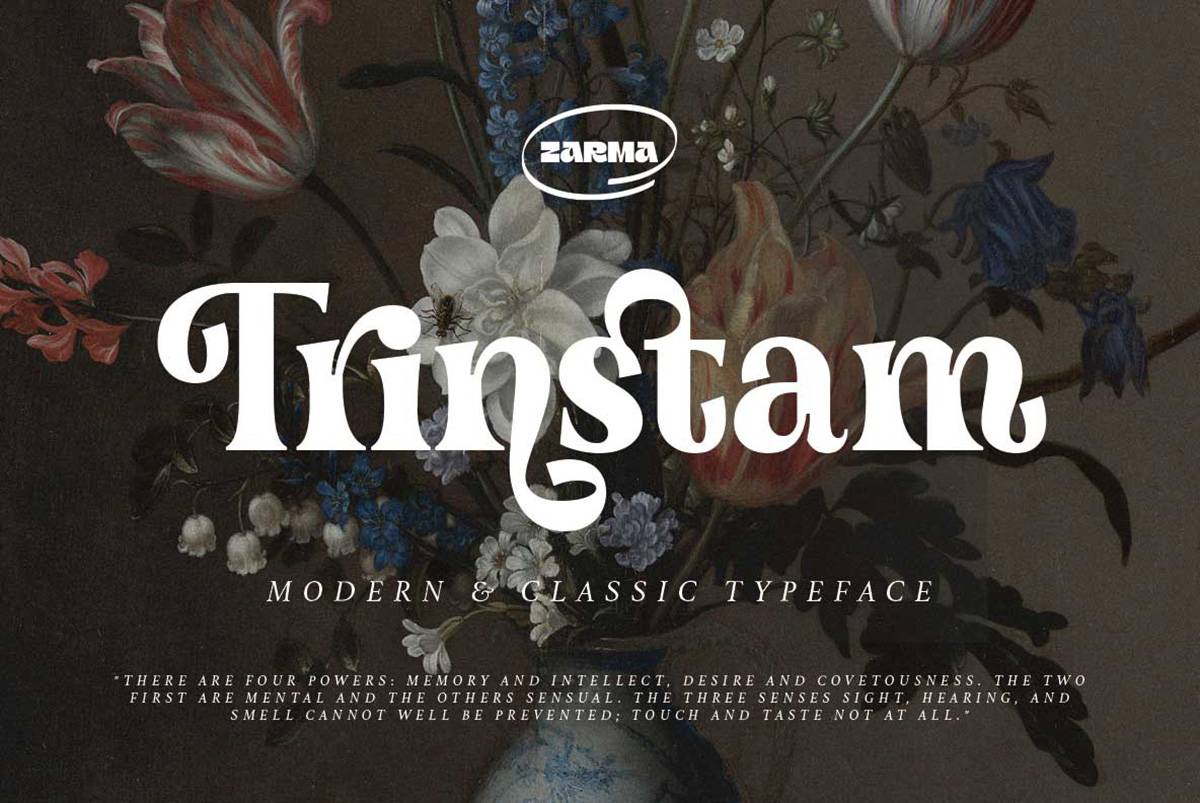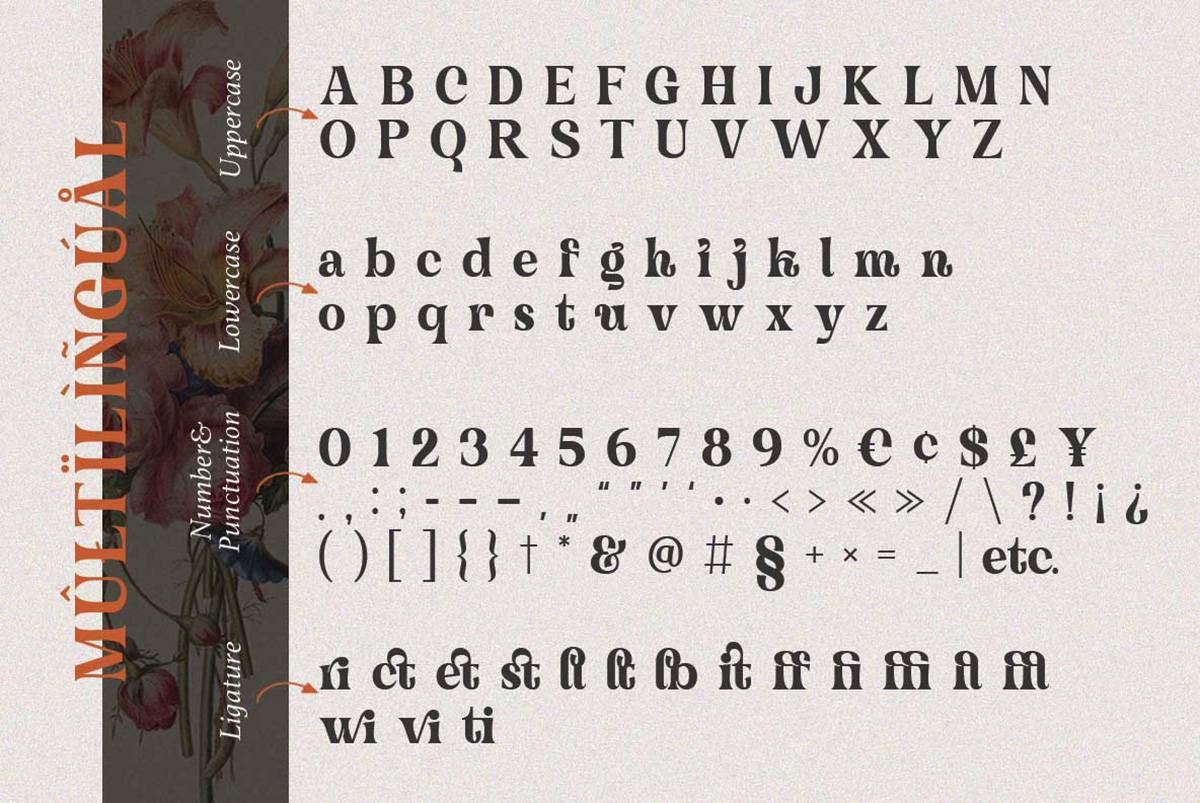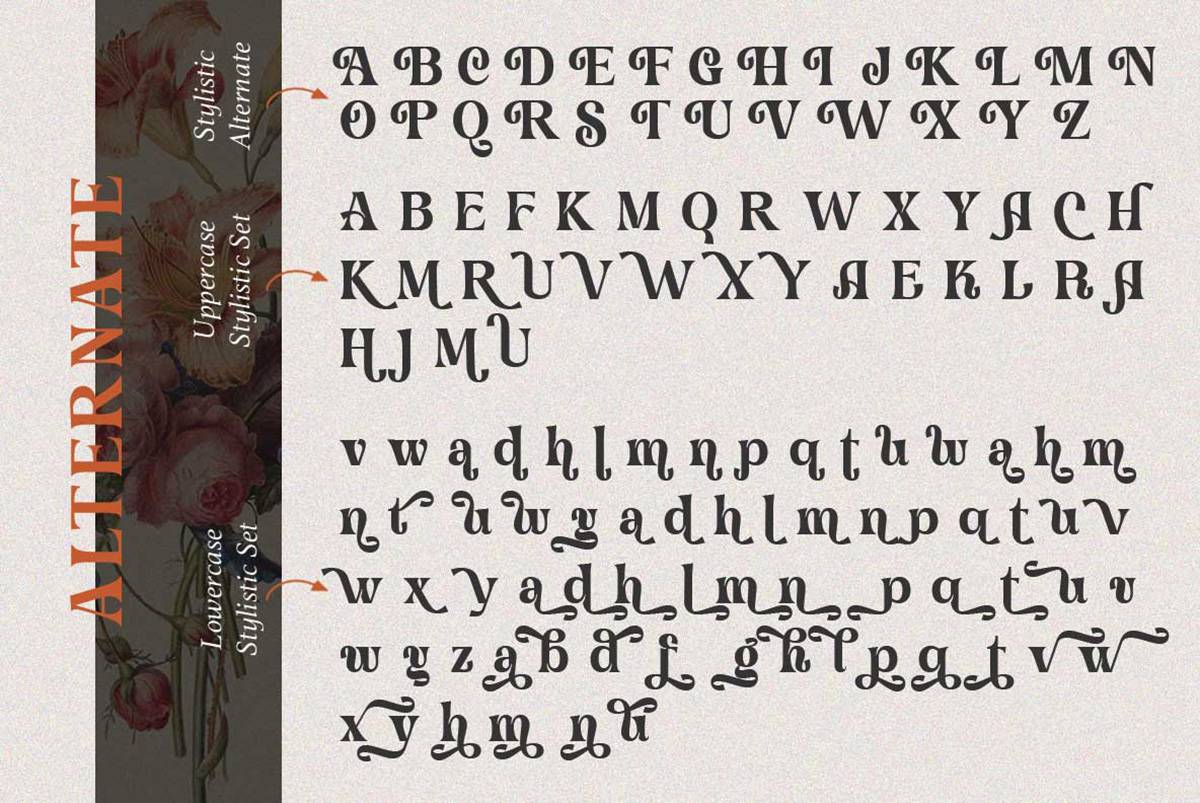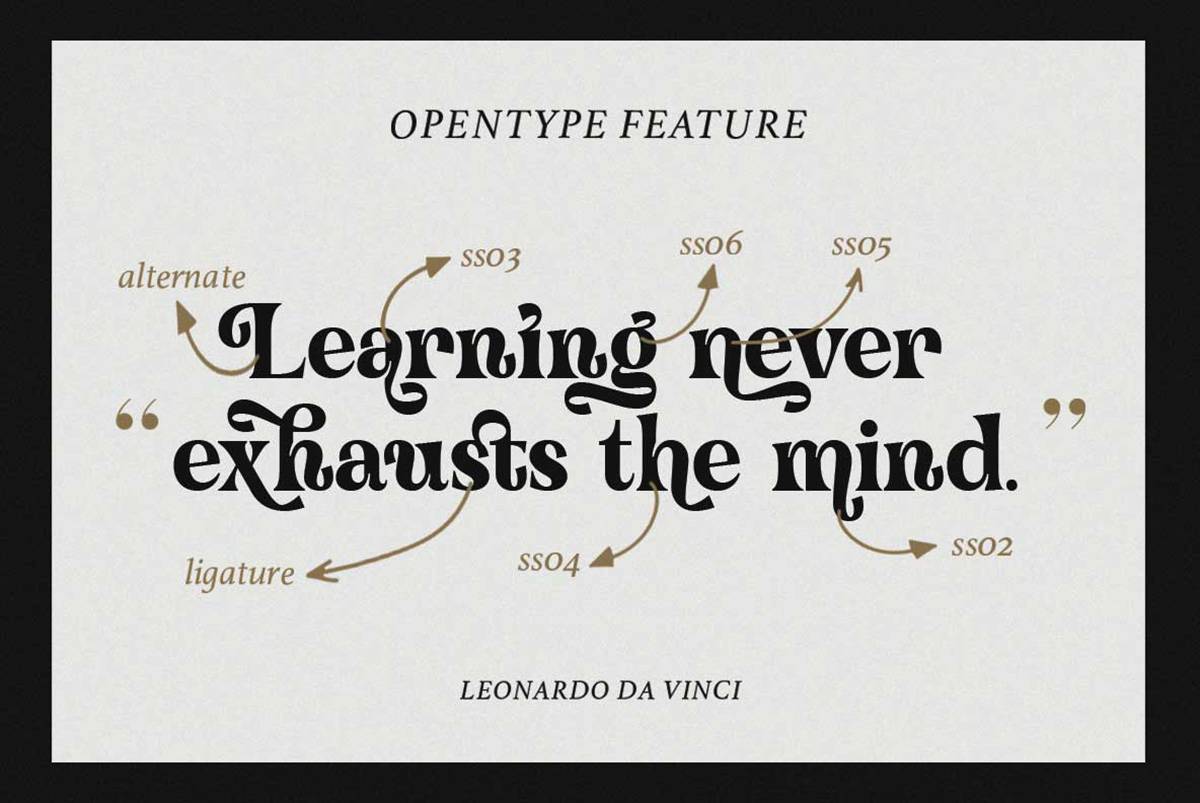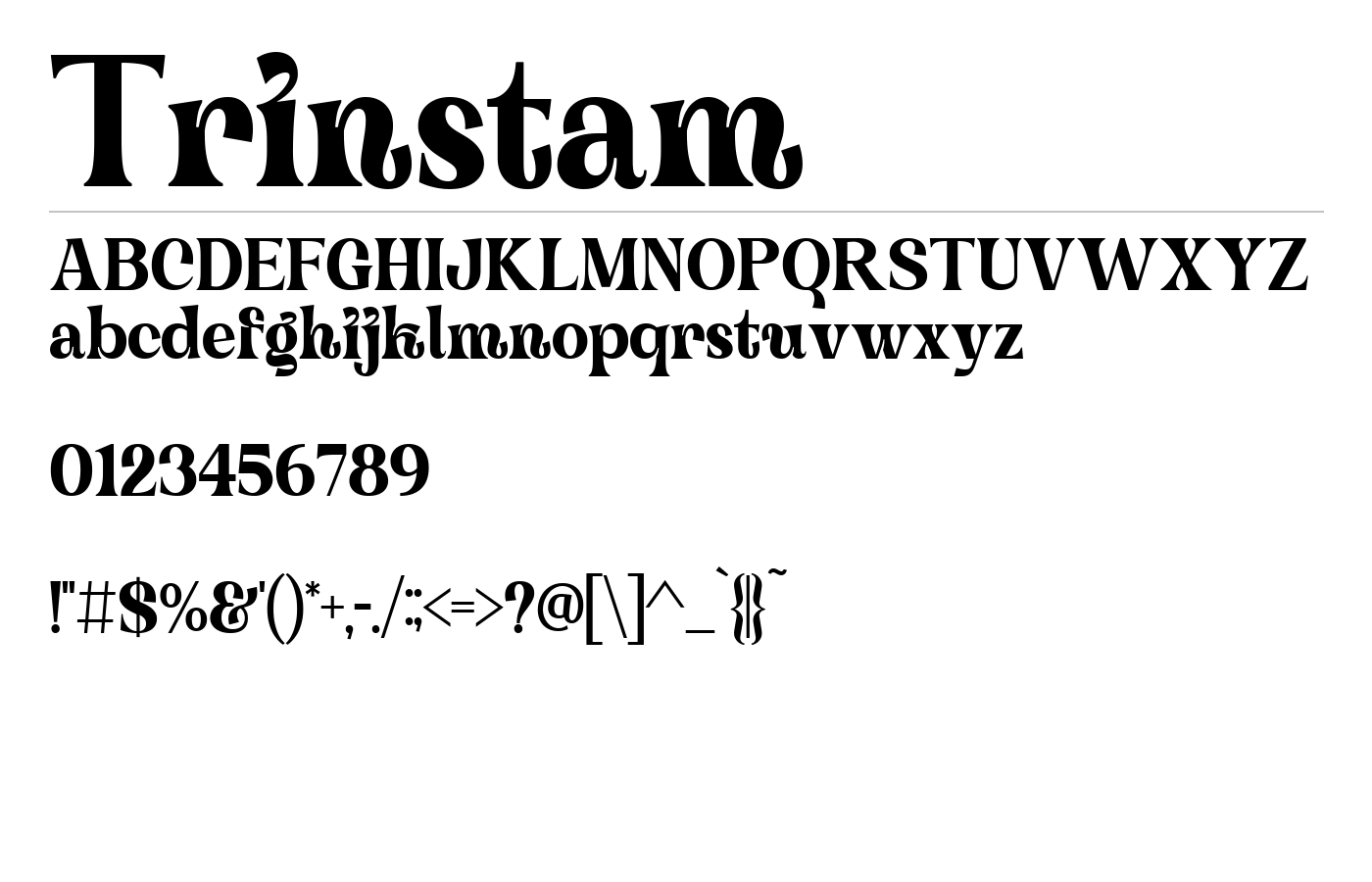
Trinstam is a bold serif font with a strong presence, characterized by its high contrast between thick and thin strokes and playful, slightly quirky letterforms. Its unique curves and distinctive serifs lend a vintage yet contemporary feel, making it ideal for eye-catching headlines, branding, and packaging that seek to combine elegance with a touch of personality. This font works especially well in fashion and editorial designs where a bold, stylish statement is needed.
Trinstam Font
About Trinstam Font
| Designer | Azzam Ridhamalik |